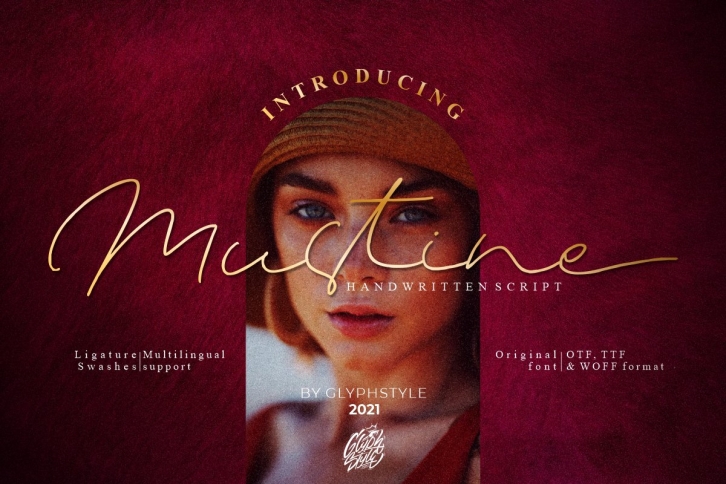
Mustine Handwritten is a beautiful font that was designed by GlyphStyle. It's a great choice for designers and creatives who need such a font. It was released on June 1, 2021 and the file size is 5.22 MB. Mustine Handwritten may give a more youthful, expressive and casual look to your project. It is a very beautiful, refined, elegant, and high-quality font.